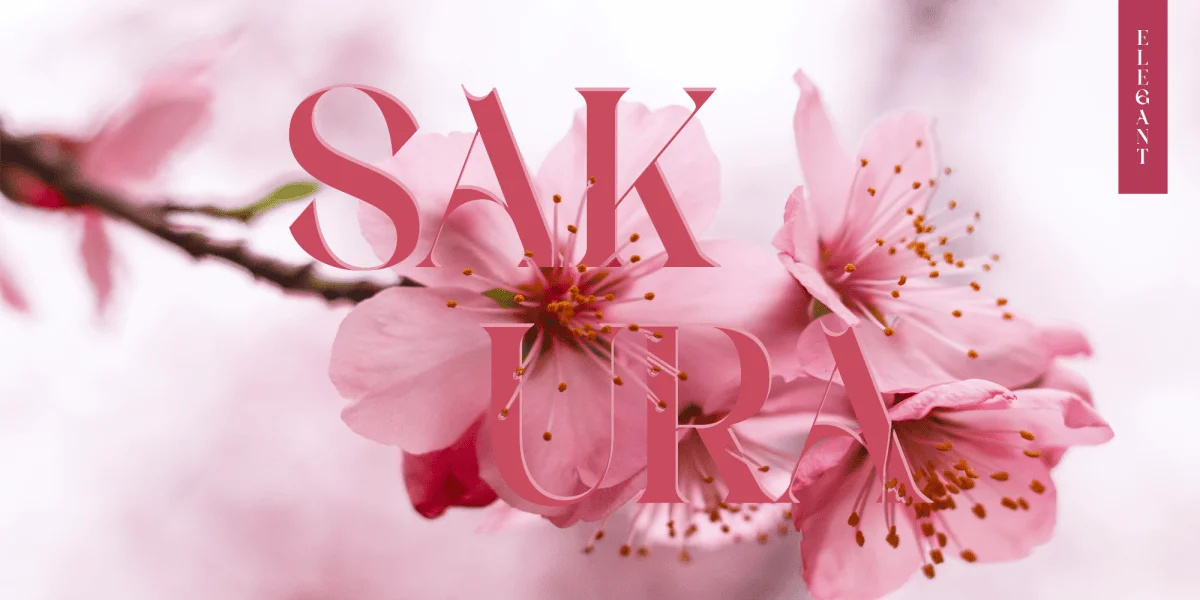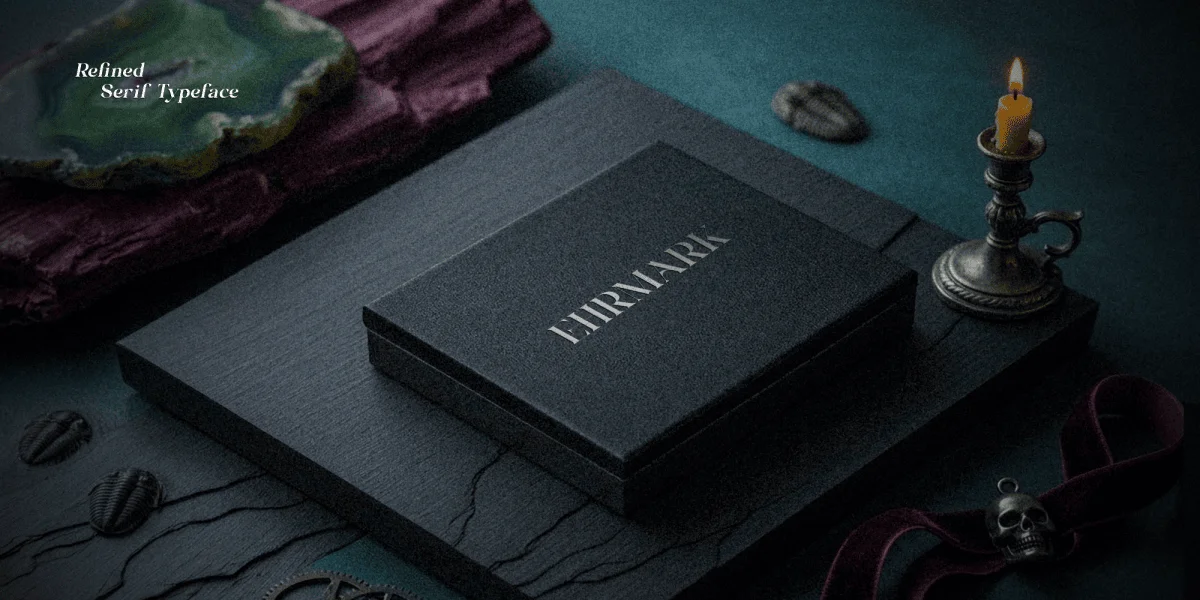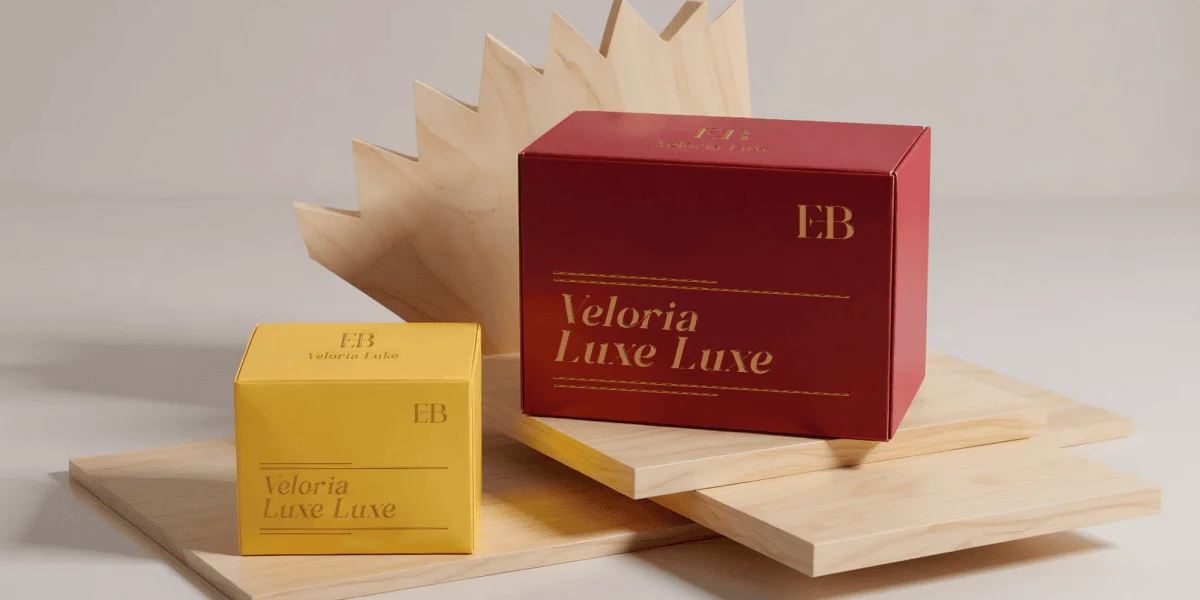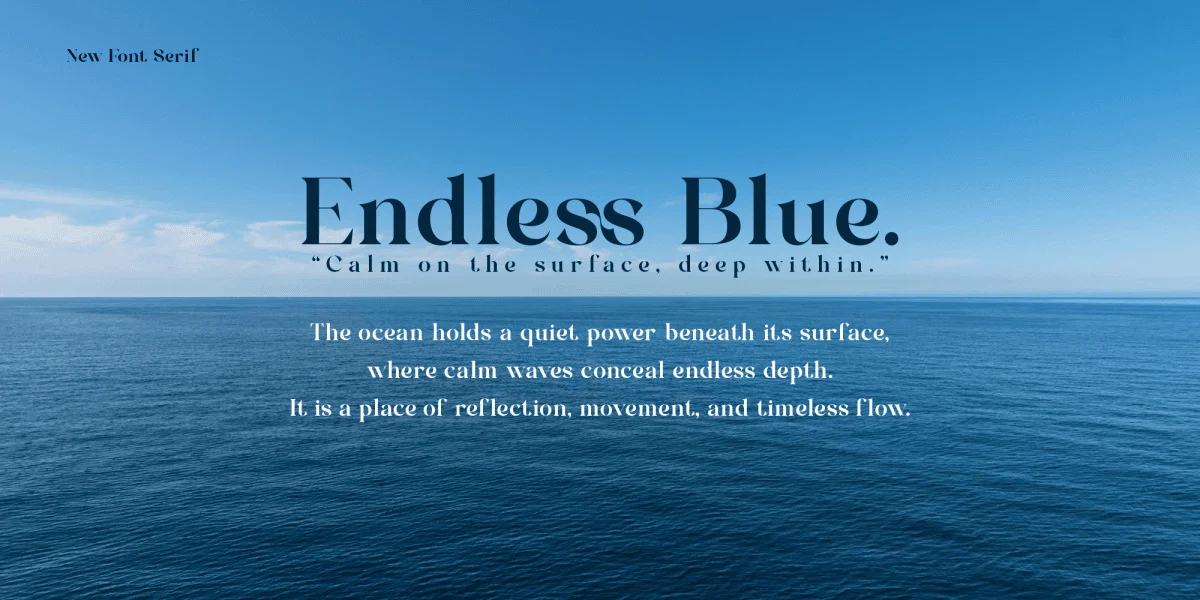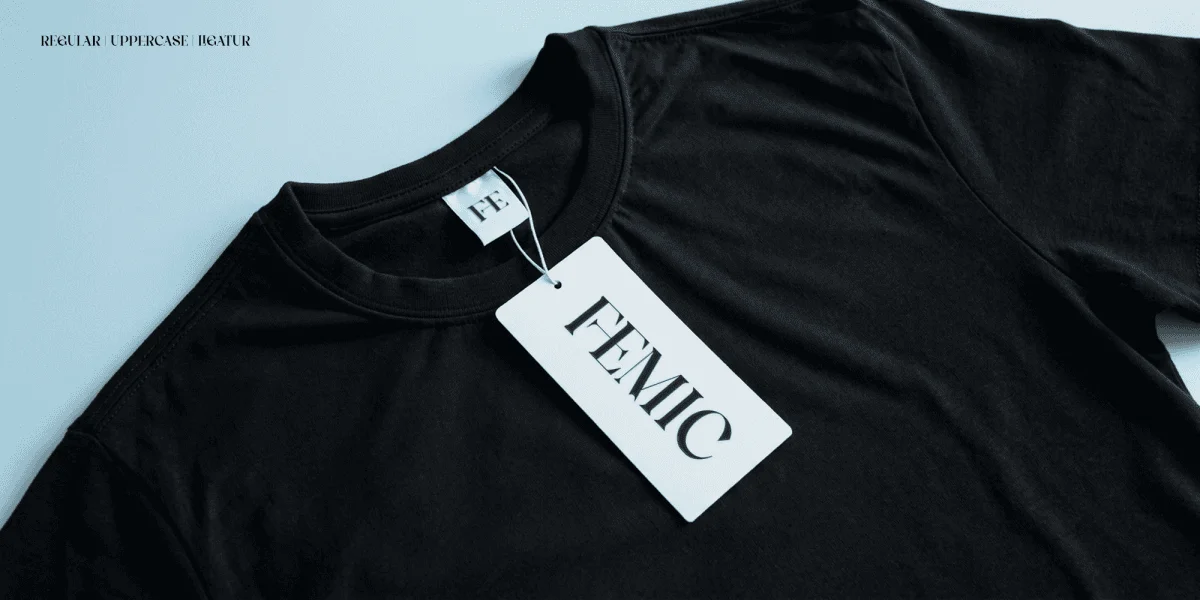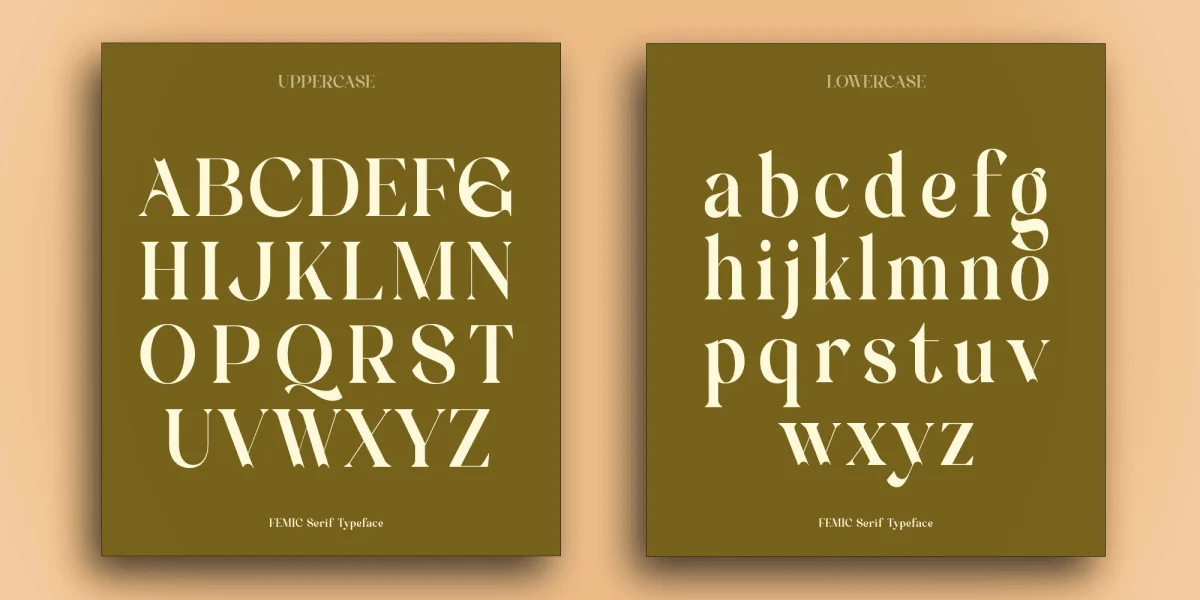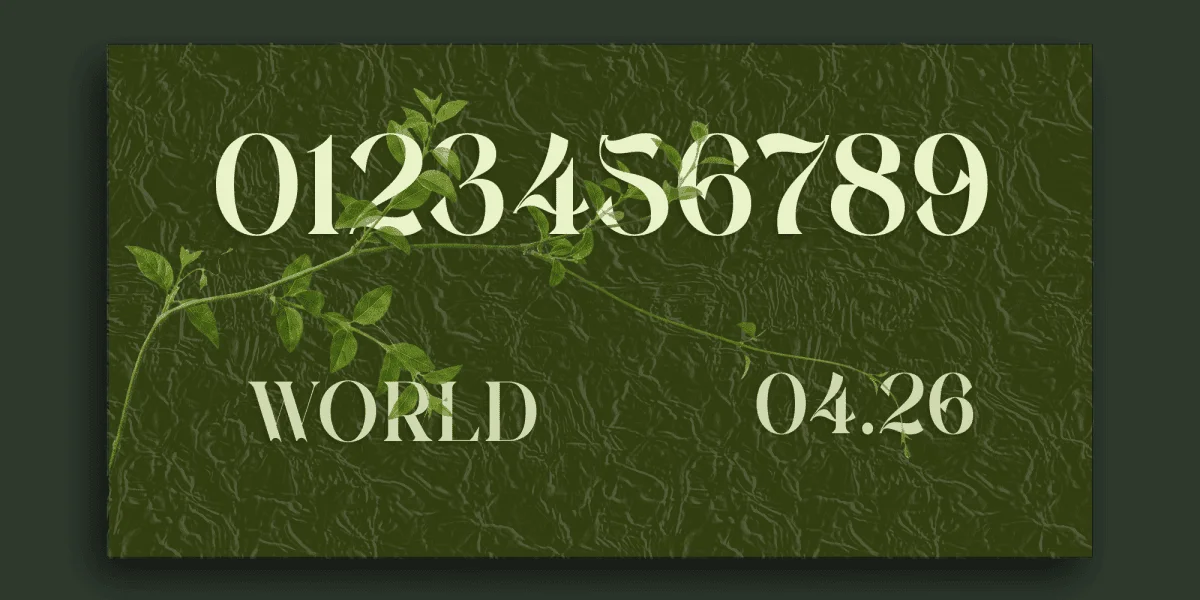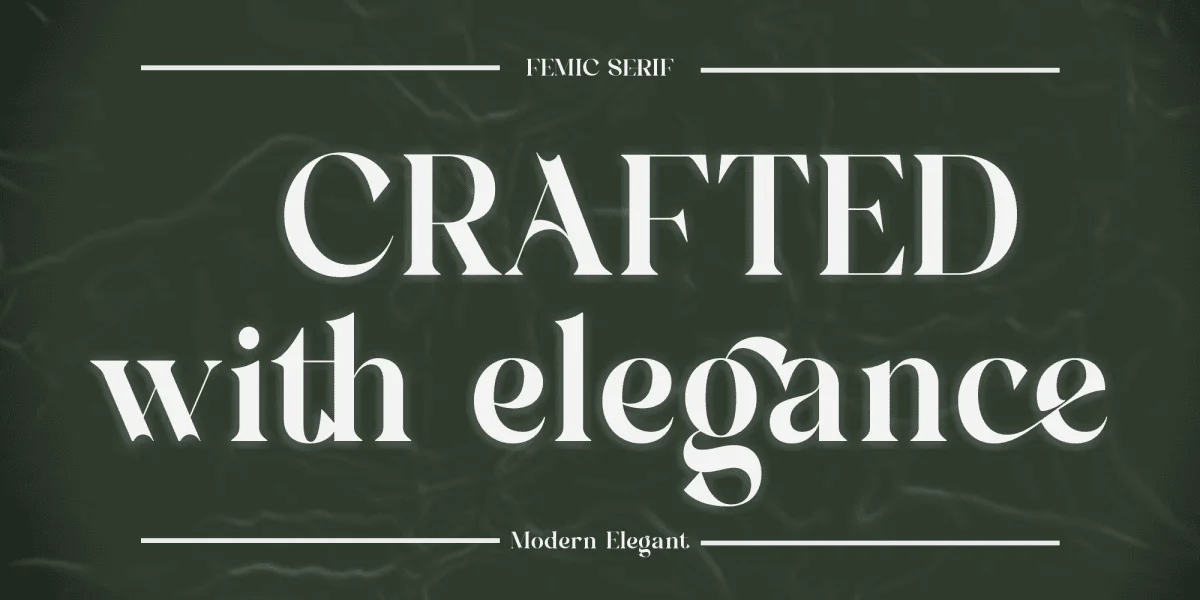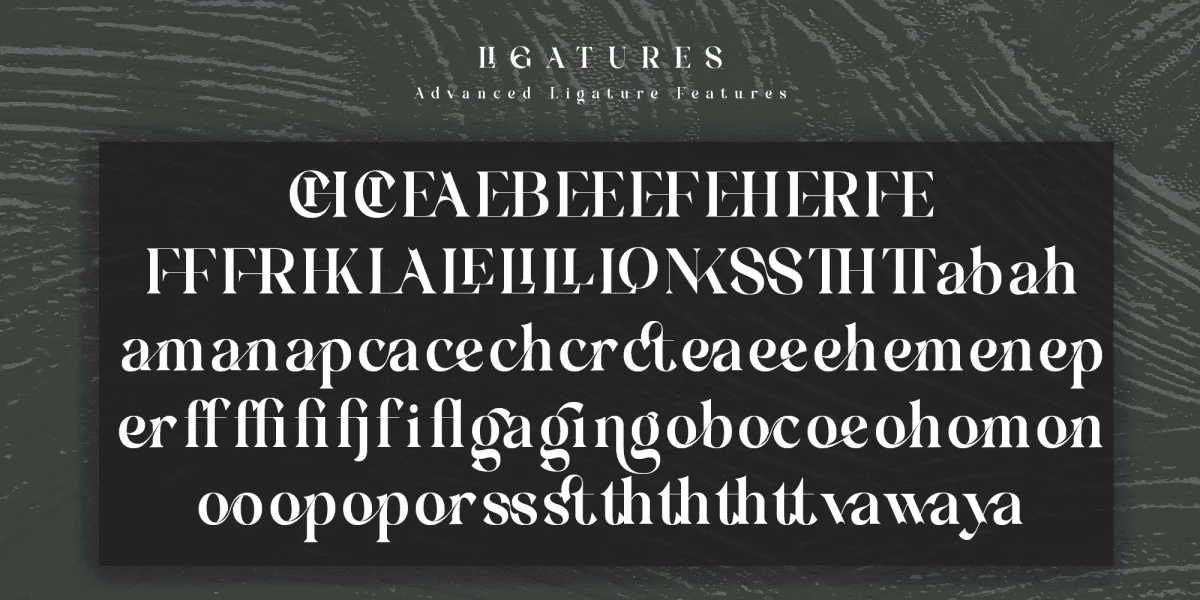
FEMIC SERIF is a modern elegant serif typeface crafted to bring sophistication, beauty, and timeless charm into every design. With its refined letterforms, graceful curves, and carefully balanced contrast, FEMIC SERIF offers a luxurious yet contemporary aesthetic that feels both classic and fresh. Designed with attention to detail, this typeface embodies elegance in its purest form, making it perfect for projects that seek a polished and premium visual identity.